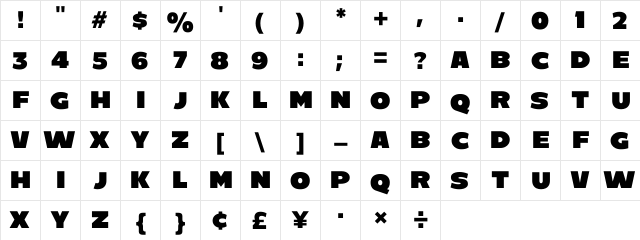
C800 Regular
| Designer | The Trending Fonts |
Design Context for C800 Typeface
C800 takes a measured approach to typography — its balanced proportions and neutral character make it a reliable workhorse for both digital and print work.